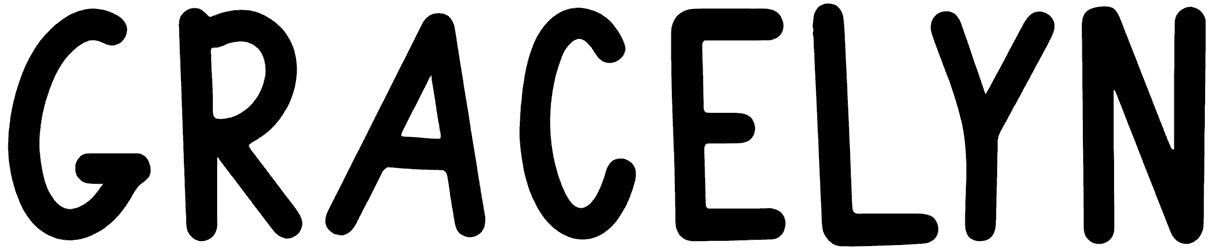
Gracelyn Font
Gracelyn is a simple, yet exciting, sans serif style, handwritten script font! The cute, bold characters form one relaxed typography. Interested in a font that’s friendly and looks modern?! Then this one is best for your designs!
It is perfect for many places, you can add it to your books, branding, and cards, or even on websites if that’s what you wish. Gracelyn will give your project a lovely image that will be adored by all the viewers!